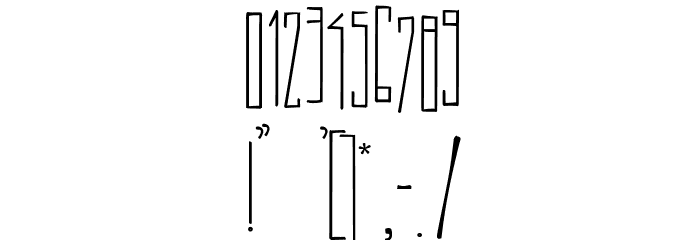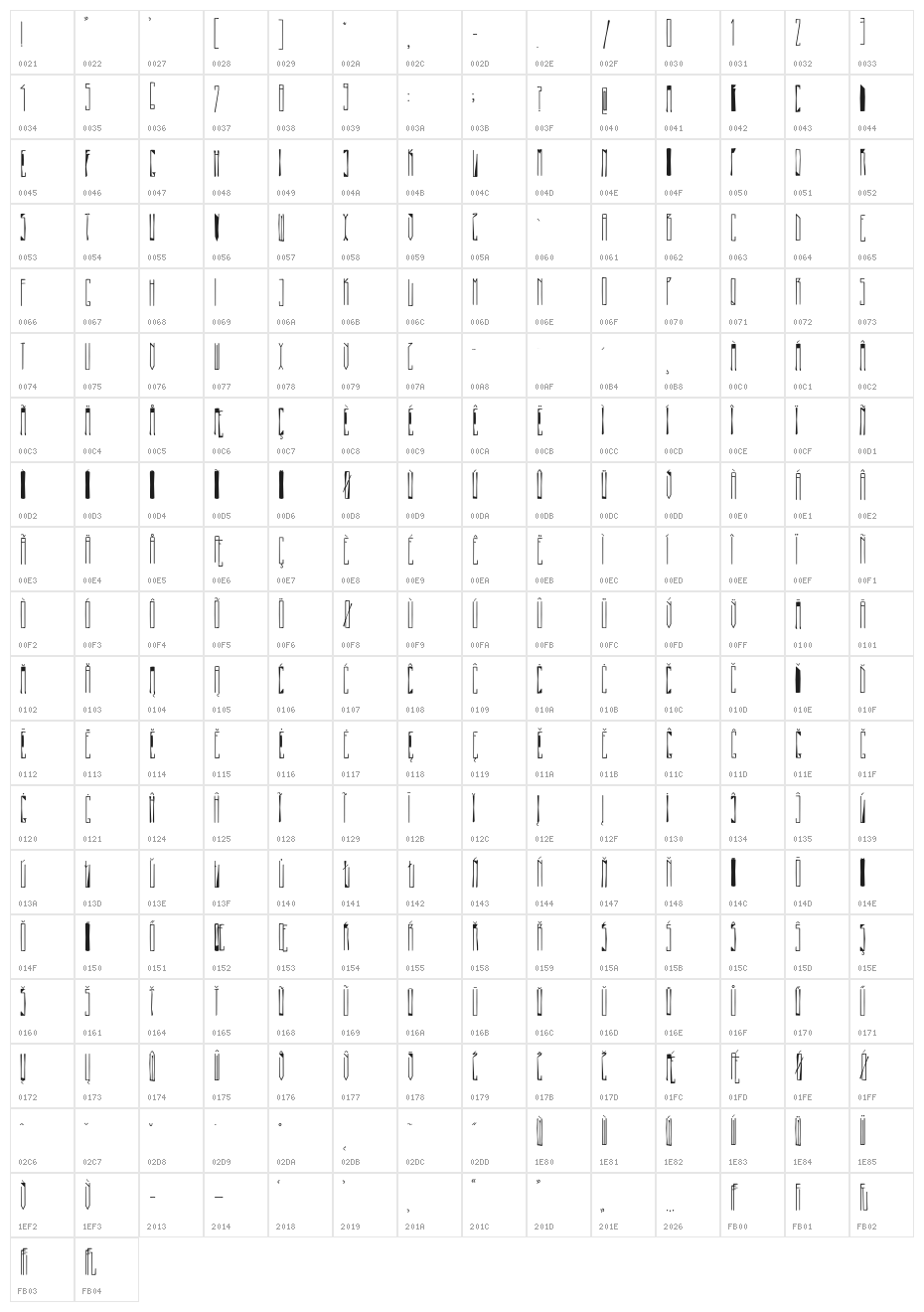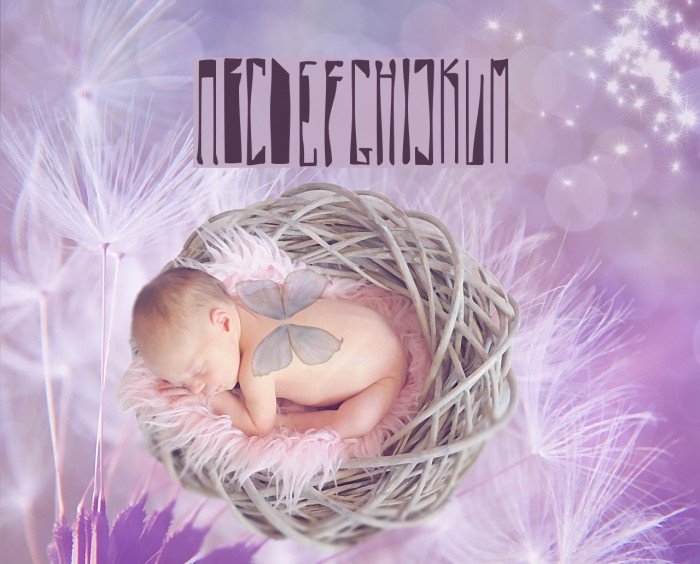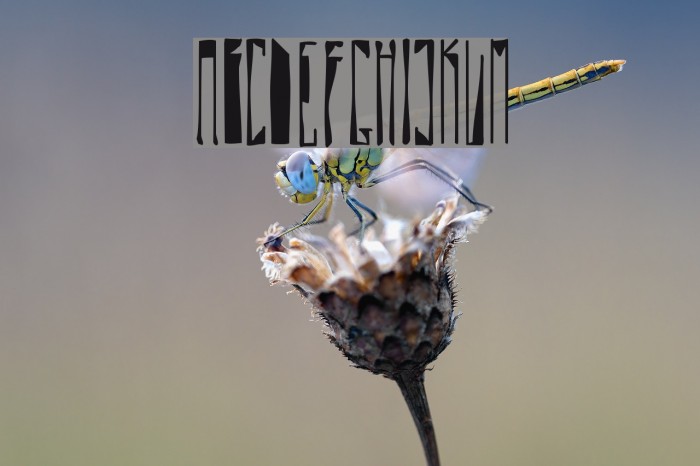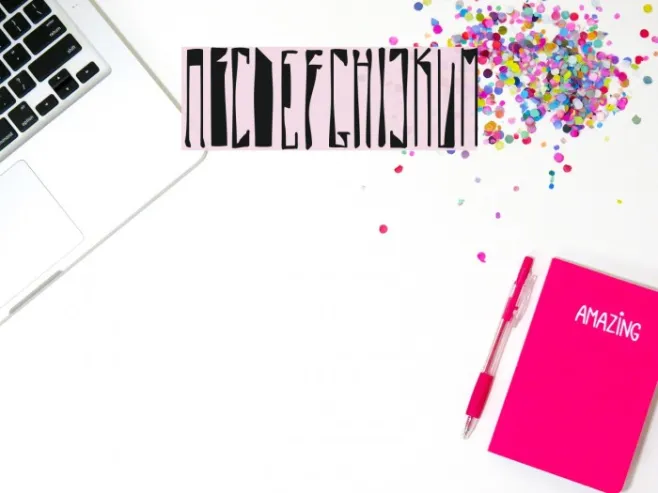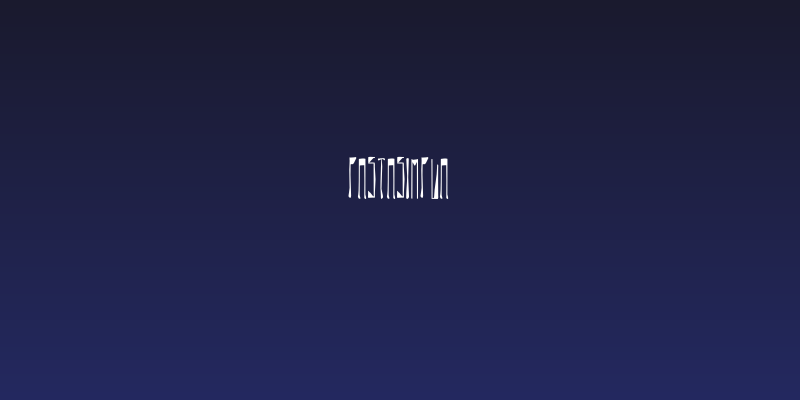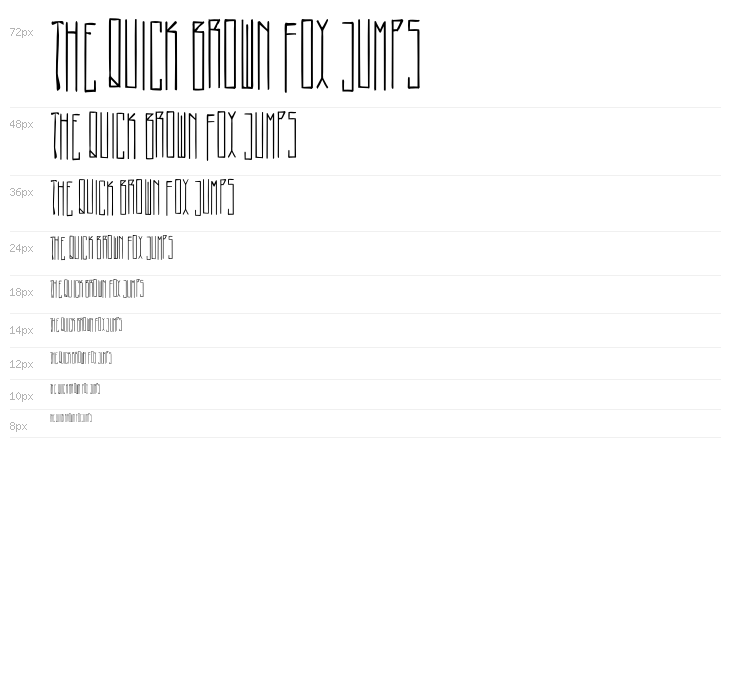
PastaSimpla Font
PastaSimpla Description
This font features a unique and artistic design with elongated and narrow characters, giving it a distinct vertical emphasis. The uppercase letters are bold and striking, with sharp angles and a modern flair. The lowercase letters maintain the same narrow structure, providing a cohesive look across the typeface. Numbers are similarly styled, ensuring consistency throughout. Special characters are creatively integrated, adding to the font's decorative appeal. This font's design is both eye-catching and sophisticated, making it suitable for projects that require a touch of elegance and modernity.
| Proposed Projects | Ideal for branding, posters, album covers, and any project needing a modern, artistic touch. |